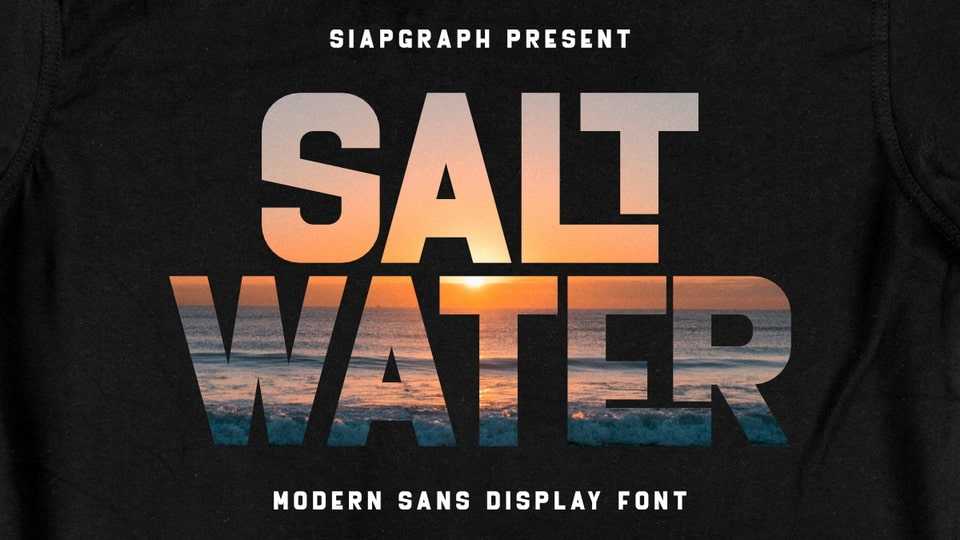
Download Salt Water font, a bold modern sans display typeface with a clean and confident design, perfect for summer themes, beach quotes, and tropical vibes.
Designer: SiapGraph